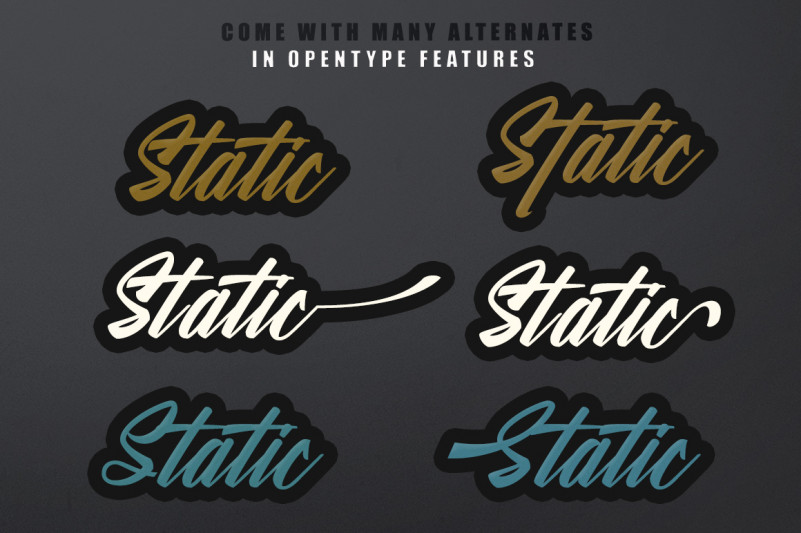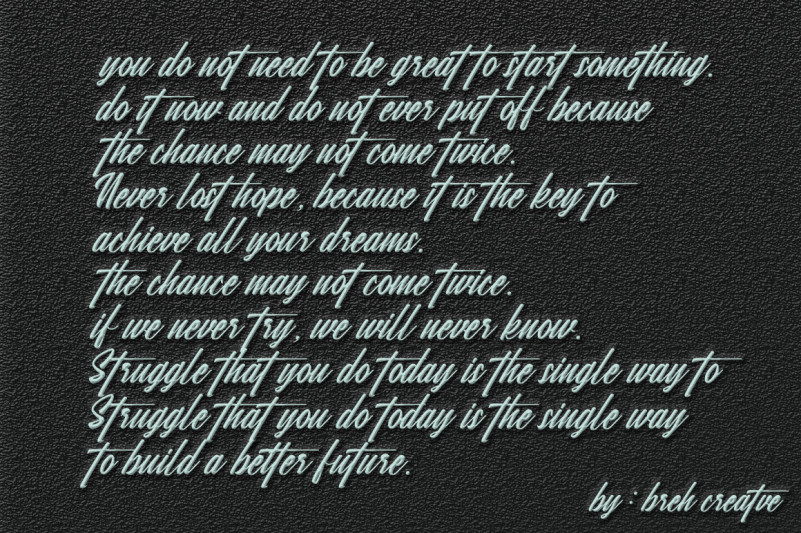
Yastrib Script Font
It is proud to present our latest product ‘YASTRIB SCRIPT FONT’. This beautiful font will be very suitable to be included in your design. with vintage style. This font is great for product logos, wedding card logos, clothing brand logos, Vintage designs, and more.
Yastrib Script Font is Luxsury’s Font with a new style 2020, the style of perfection of the letters you want to use, modern handwriting with many alternatives.403 characters and alternatives.
Yastrib Script Font equipped with:
Uppercase,
lowercase letters,
numbers,
punctuation,
symbols Alternative
style Stylistic Set01 – Stylistic Set07
Swash
Supported languages; Breton, Catalan, Czech, Danish, Estonian, French, German, Hungarian, Icelandic, Italian, Romanian, Scottish Gaelic, Slovak, Latvian, Lithuanian, Norwegian, English, Finnish, Polish, Portuguese, Slovenian, Spanish, Swedish, Turkish, Welsh . Basically, all European languages ​​are based on the Latin alphabet.